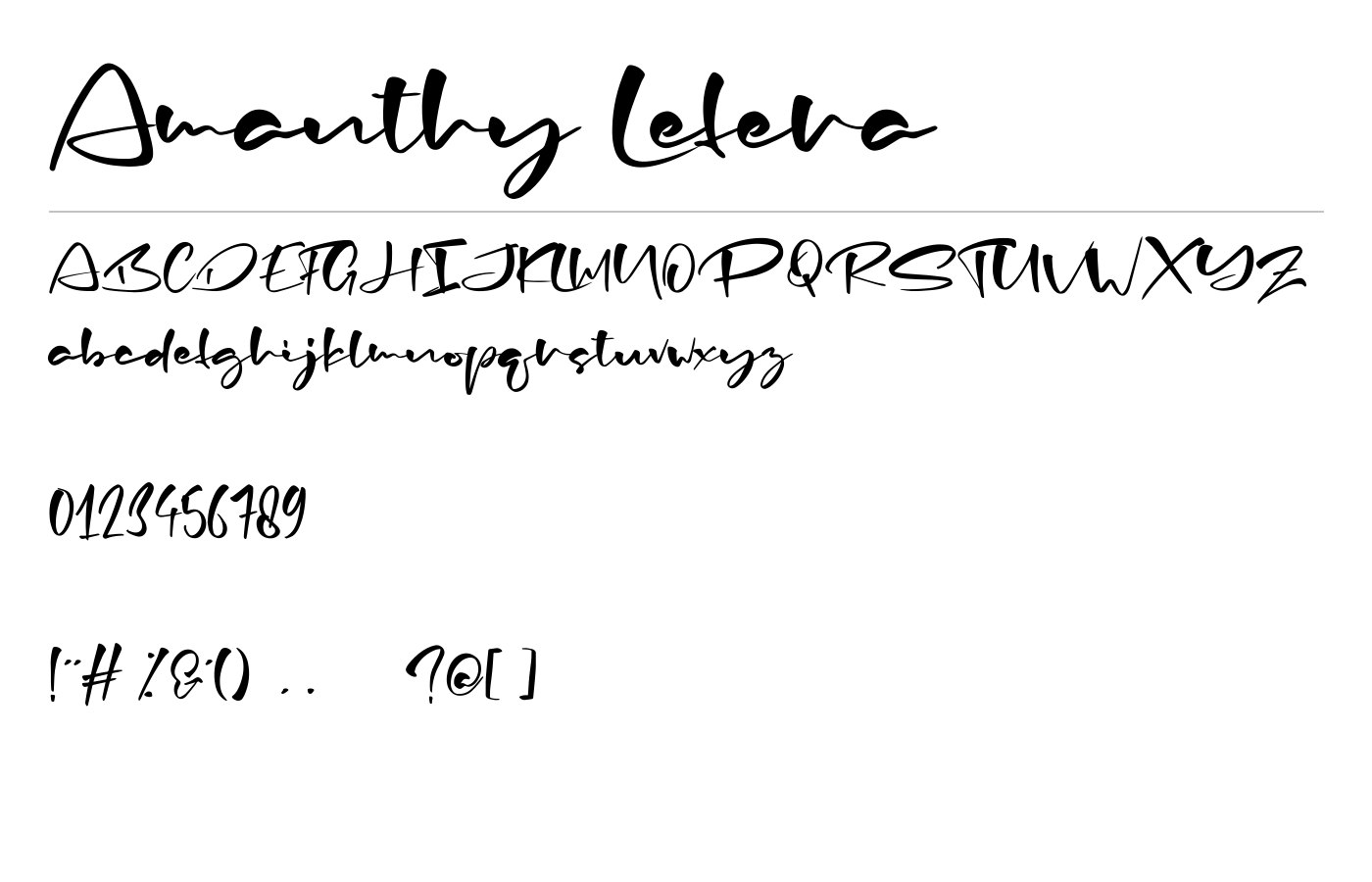
Amanthy Lefera is a lively and expressive handwritten script font that features an informal, natural flow with varied stroke widths and a casual, artistic feel. Its medium weight and dynamic, slightly condensed letterforms make it perfect for adding a personal, creative touch to branding, invitations, social media graphics, and editorial designs. This font’s playful yet elegant style brings warmth and personality, making it ideal for projects seeking a modern, handcrafted aesthetic.
Amanthy Lefera Font
About Amanthy Lefera Font
| Font family | Amanthy Lefera Font |
| Designer | MissinkLab Studio |